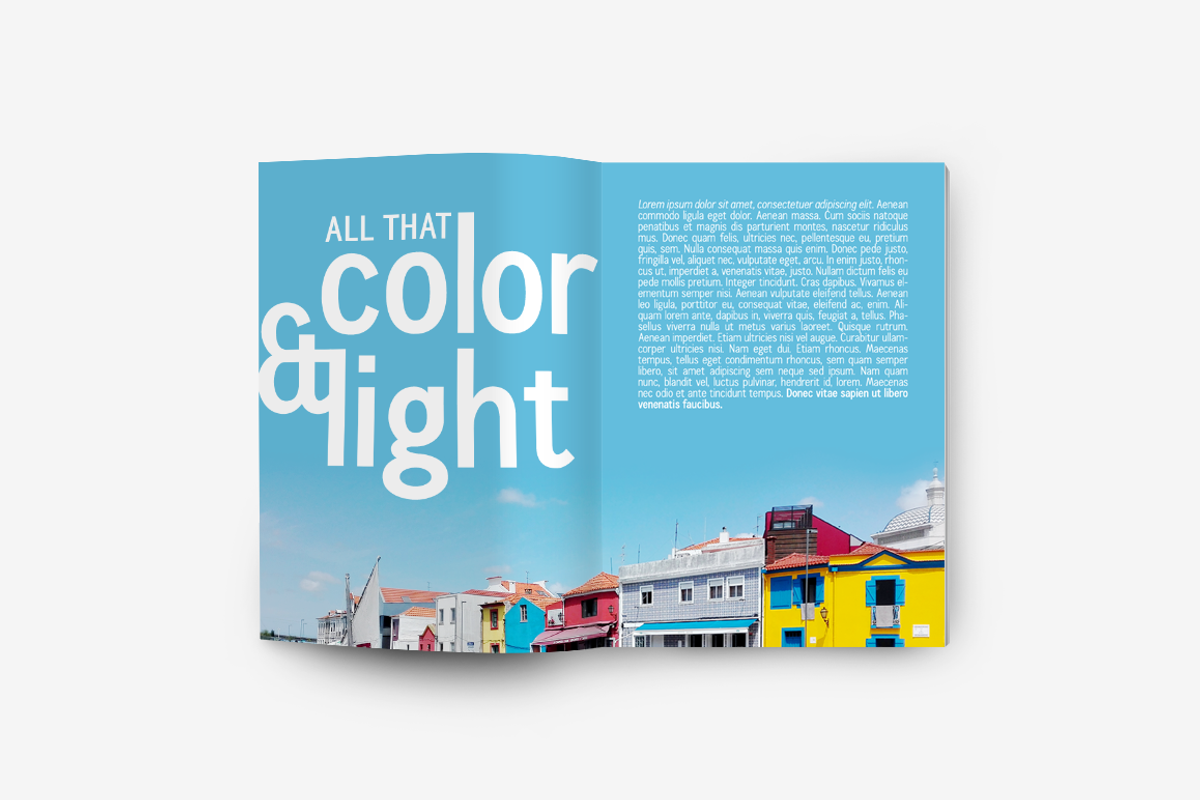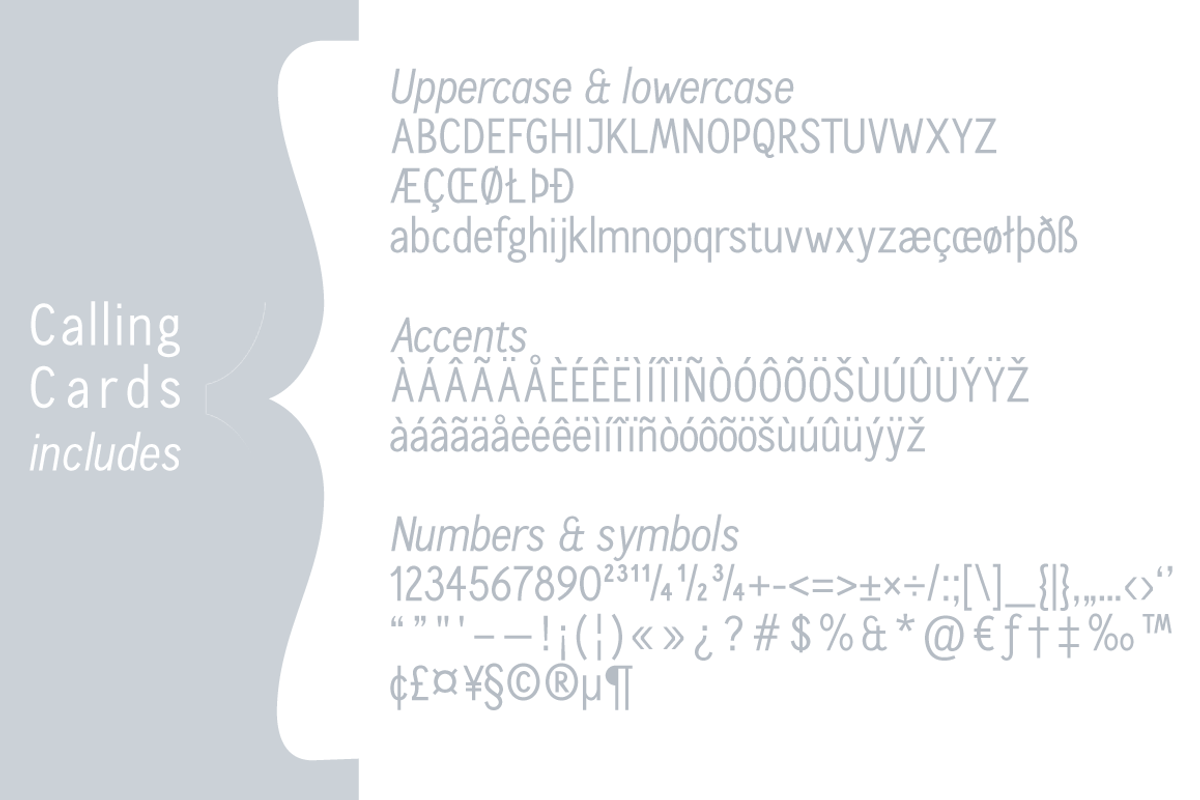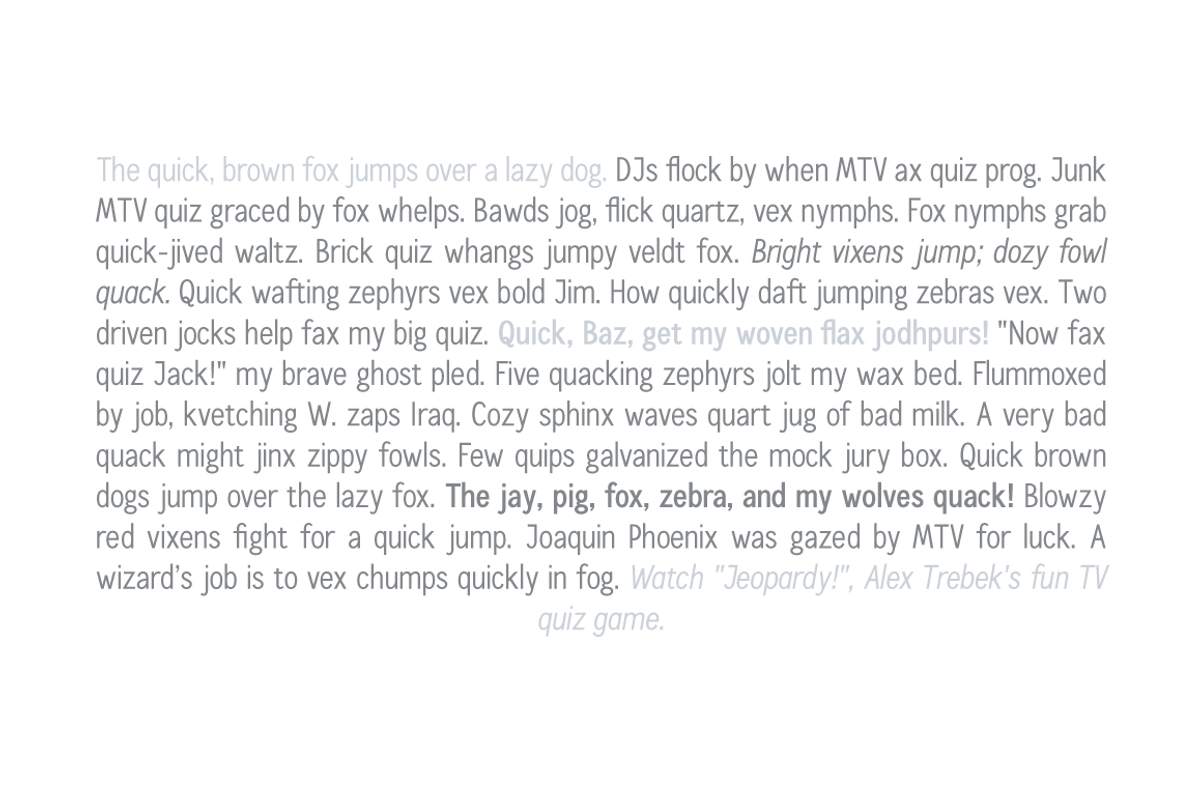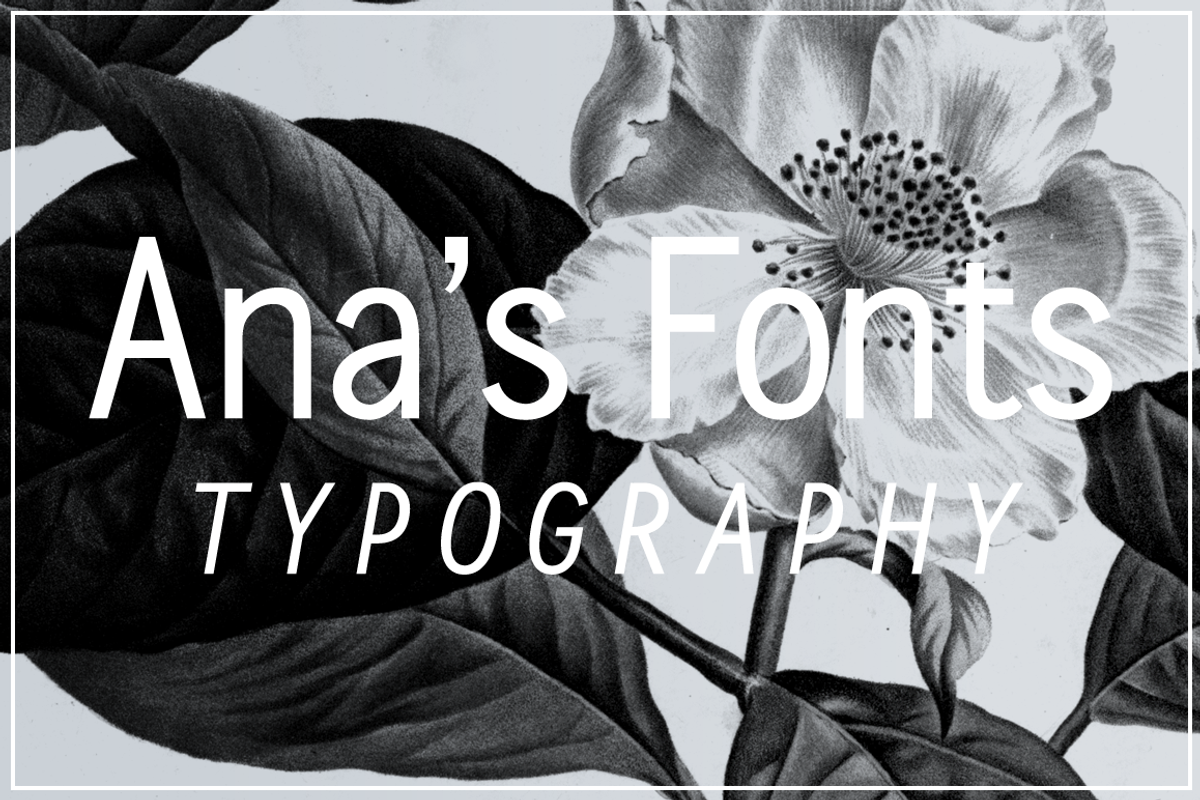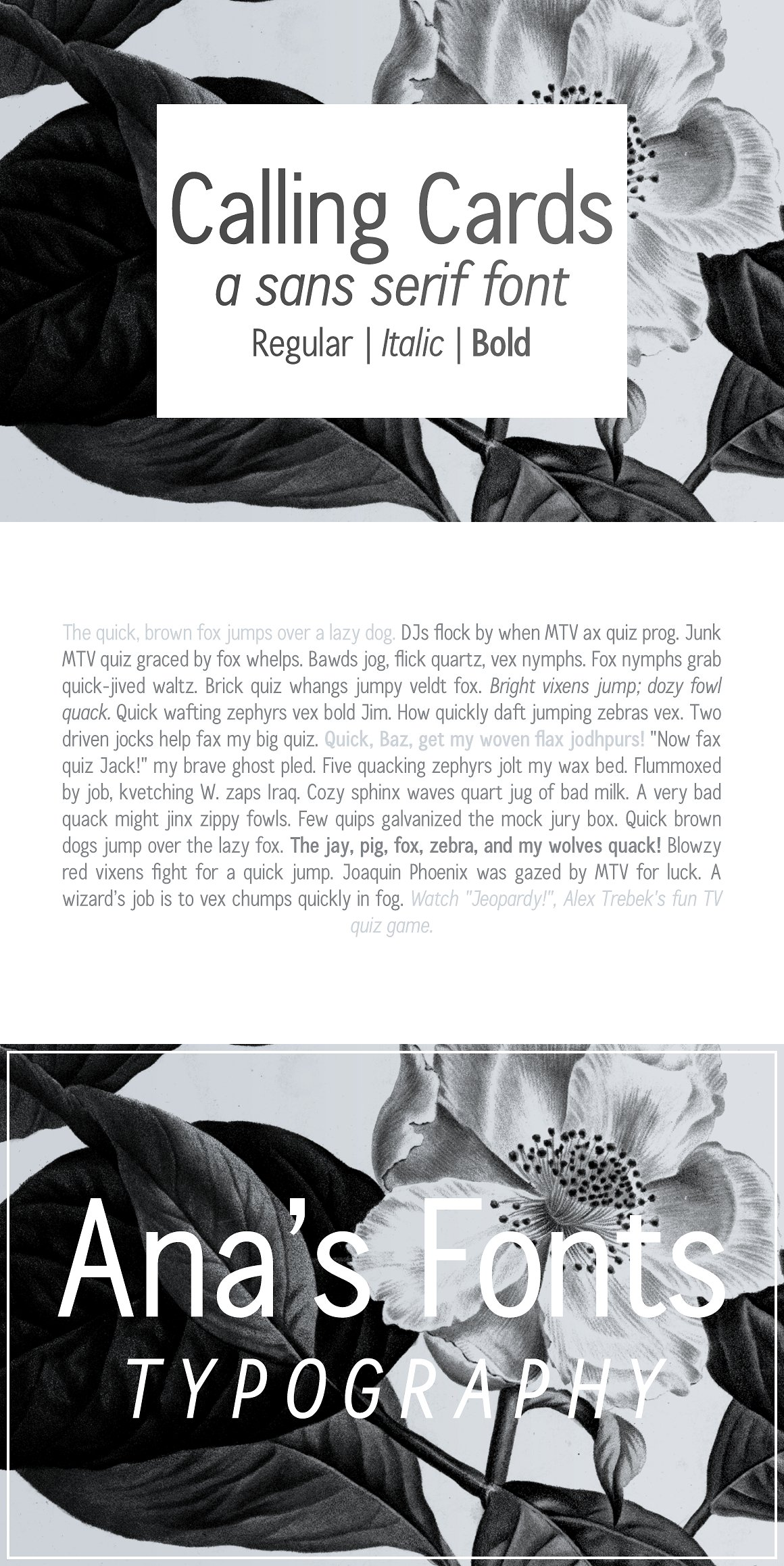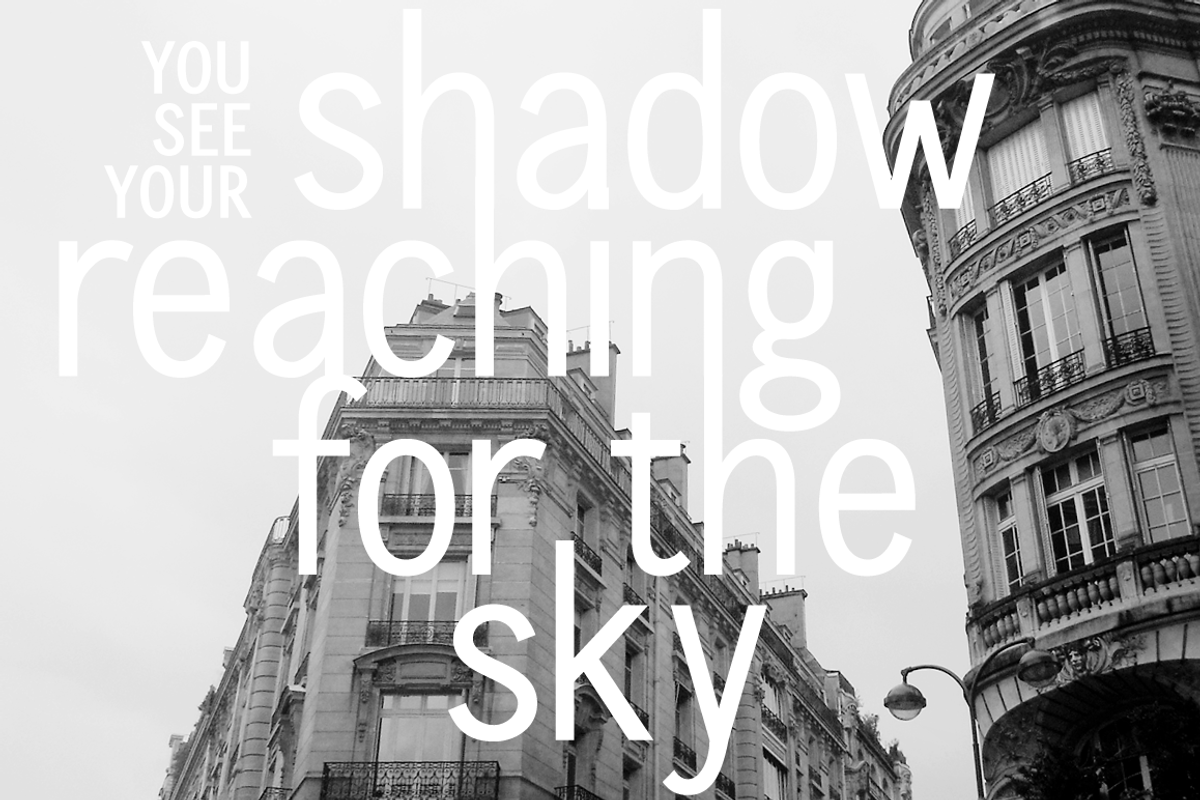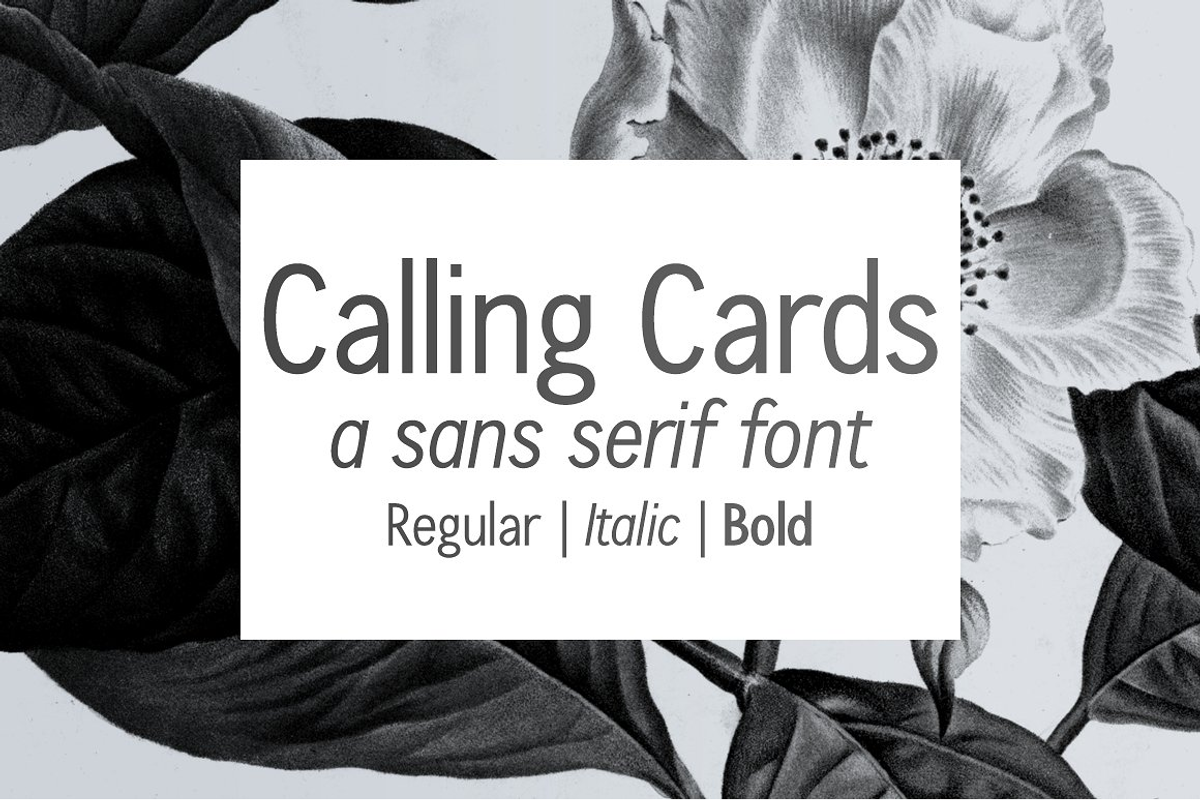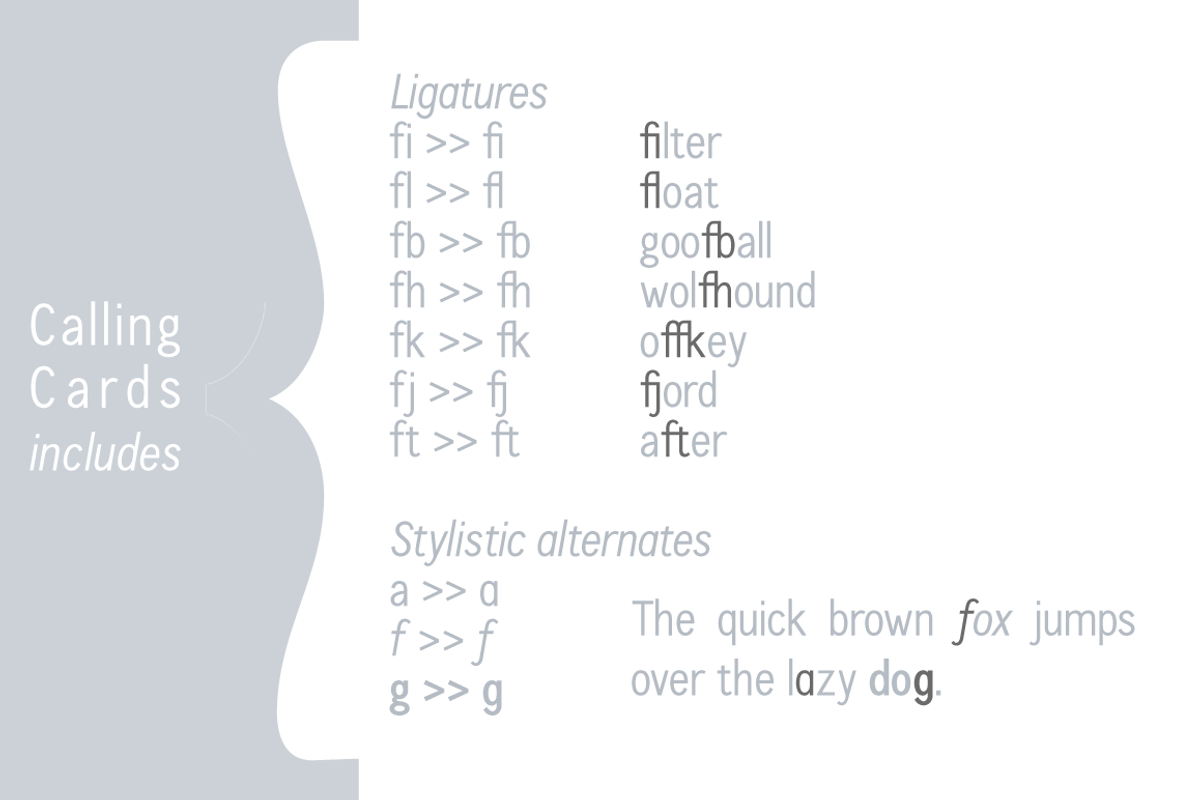
Calling Cards sans serif font
Calling Cards is a simple and clear sans-serif font family in 3 styles: Regular, Italic and Bold.
Each font includes between 246 and 256 glyphs, including: a-z | A-z | 0-9 | accents | punctuation | ligatures and stylistic alternates.
It looks great in quotes, logos, print, or social media. Readable in short and long texts, at small and large font sizes.